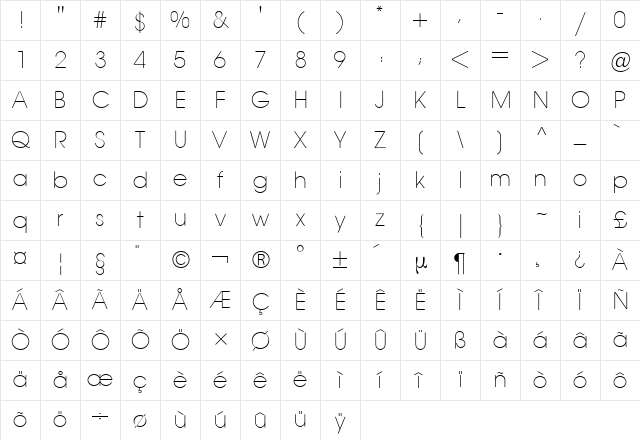
Avant Garde 2 BQ Roman
Design Context for Avant Garde 2 BQ
Avant Garde 2 BQ is a composed and adaptable typeface that performs quietly and consistently across a wide range of design contexts.
Pro Tip: Use Avant Garde 2 BQ in both headline and body roles to test its range before committing to a single application.